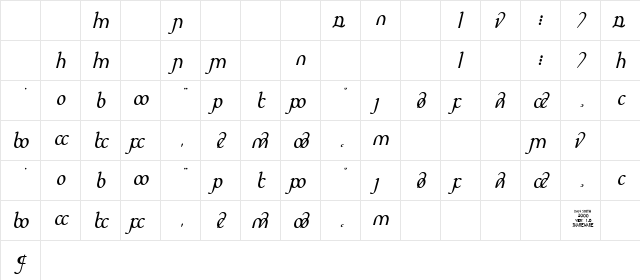
DS_Sinenya Regular
Design Context for DS_Sinenya Typeface
DS_Sinenya is a composed and adaptable typeface that performs quietly and consistently across a wide range of design contexts.